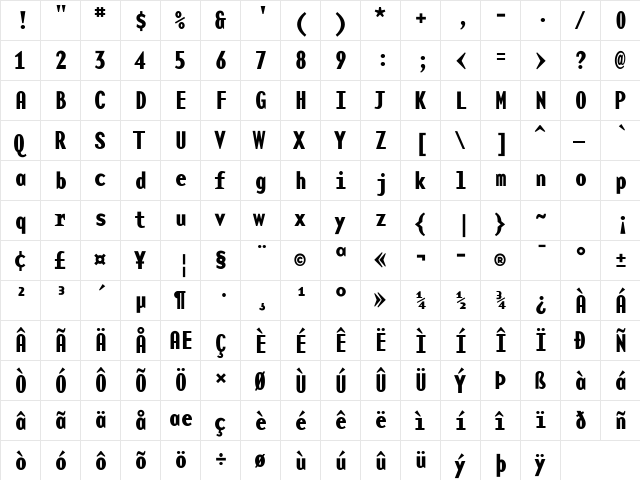
BaseMono-Narrow Bold
Design Context for BaseMono-Narrow Typeface
BaseMono-Narrow uses fixed-width spacing throughout, giving it the structured, systematic character associated with coding environments and technical documentation. Its bold stroke weight gives it real presence on the page.
Pro Tip: Pair BaseMono-Narrow with a proportional sans for UI contexts where code-style labels and regular body copy need to coexist.